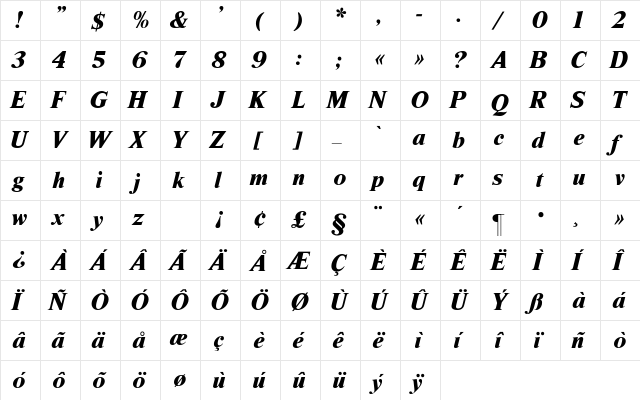
Times-BlackItalic Regular
Design Context for Times-BlackItalic Typeface
Times-BlackItalic offers clean, dependable letterforms without strong stylistic allegiance, making it a practical choice for designers who need flexibility. Its italic angle brings a sense of urgency and motion to the letterforms.
Pro Tip: Use Times-BlackItalic for emphasis, pull quotes, and subheadings where its slanted energy can add rhythm to the layout.